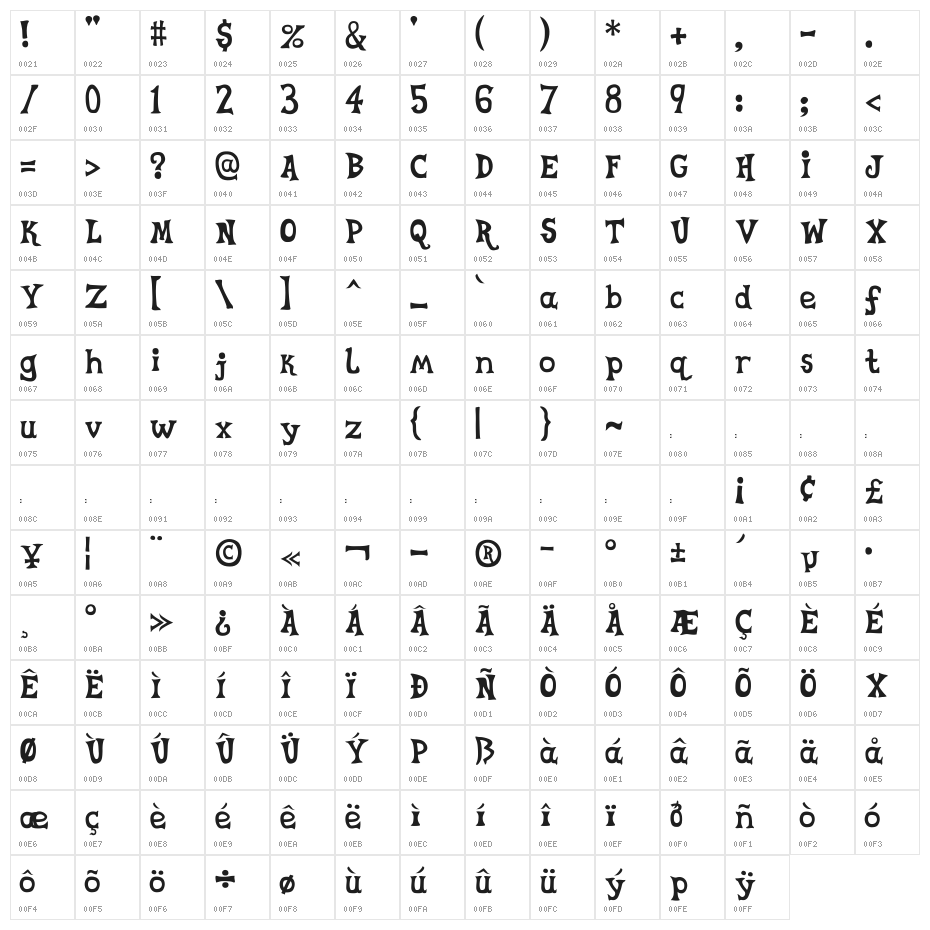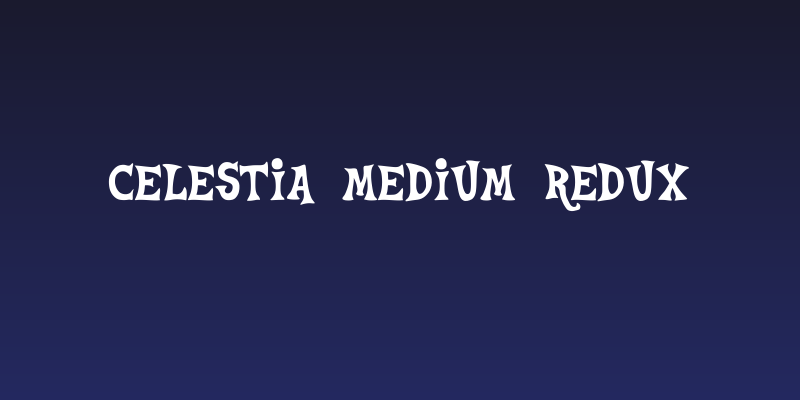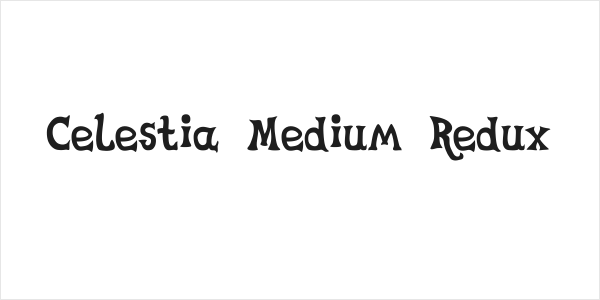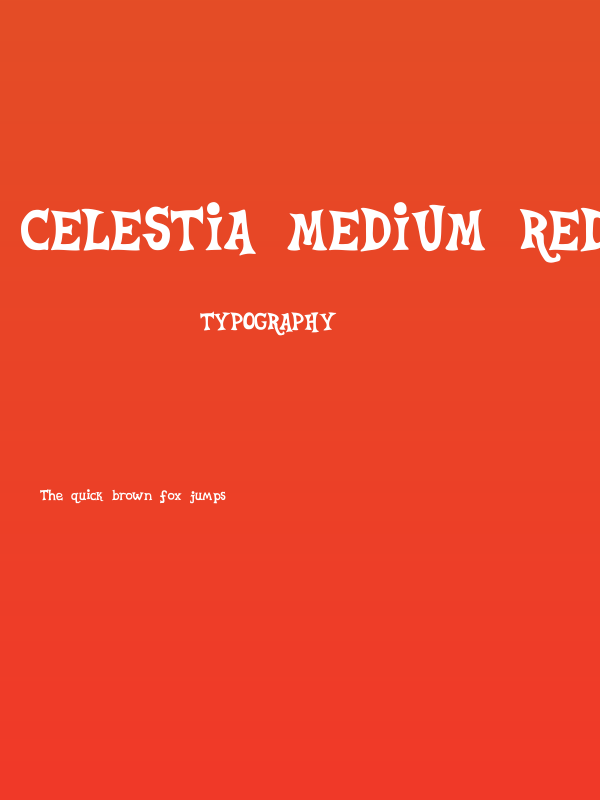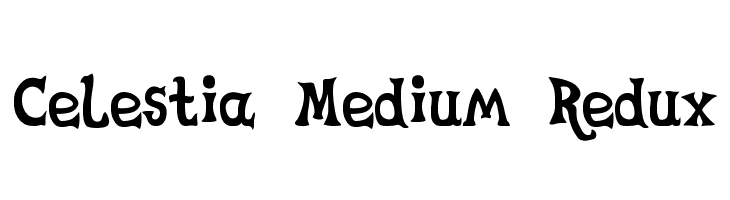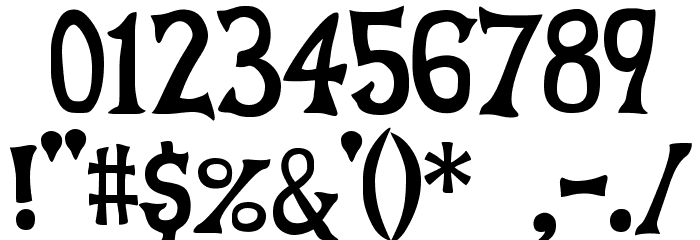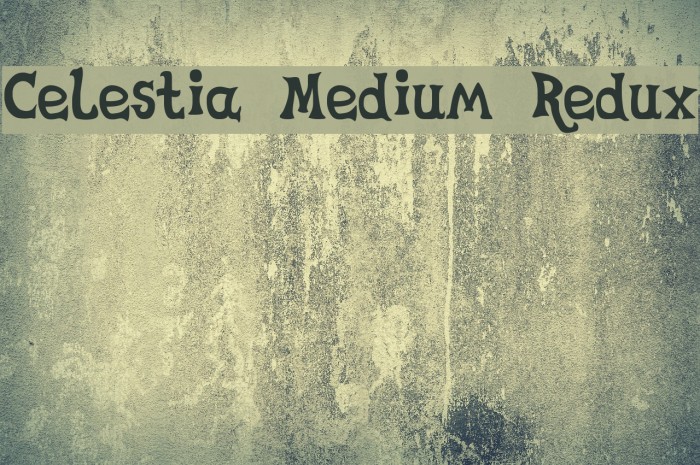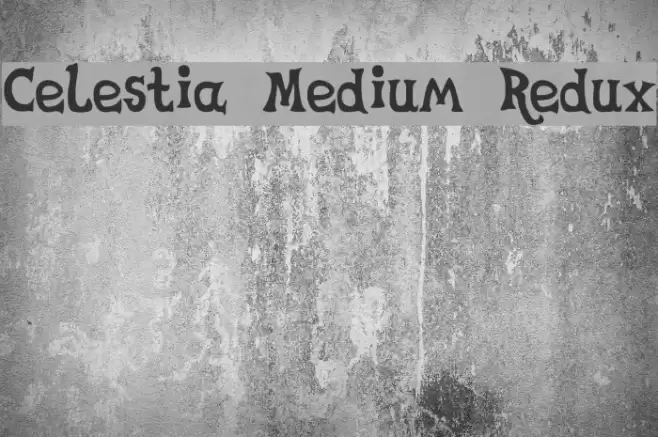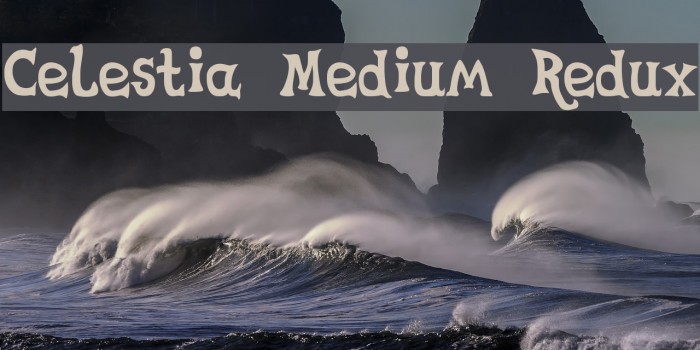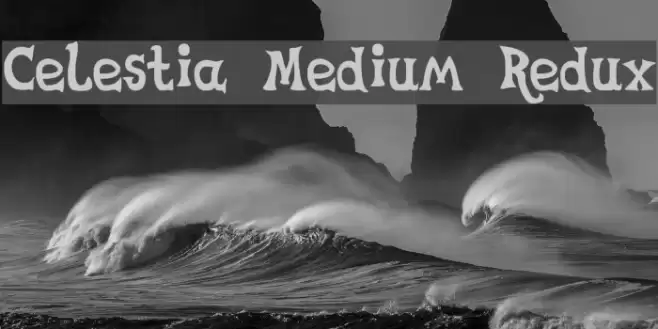
Celestia Medium Redux Font
Celestia Medium Redux Description
This font features a whimsical and playful design with a distinctive flair. The characters are bold and have a hand-drawn quality, with exaggerated curves and unique serifs that give each letter a lively personality. The uppercase letters are particularly striking, with varying stroke widths that add to the dynamic appearance. The lowercase letters maintain this playful style, ensuring consistency throughout. Numbers and special characters are equally expressive, making this font suitable for creative and artistic projects. The overall design is eye-catching and ideal for capturing attention.
| Proposed Projects | Ideal for children's books, creative posters, playful branding, and artistic invitations. |